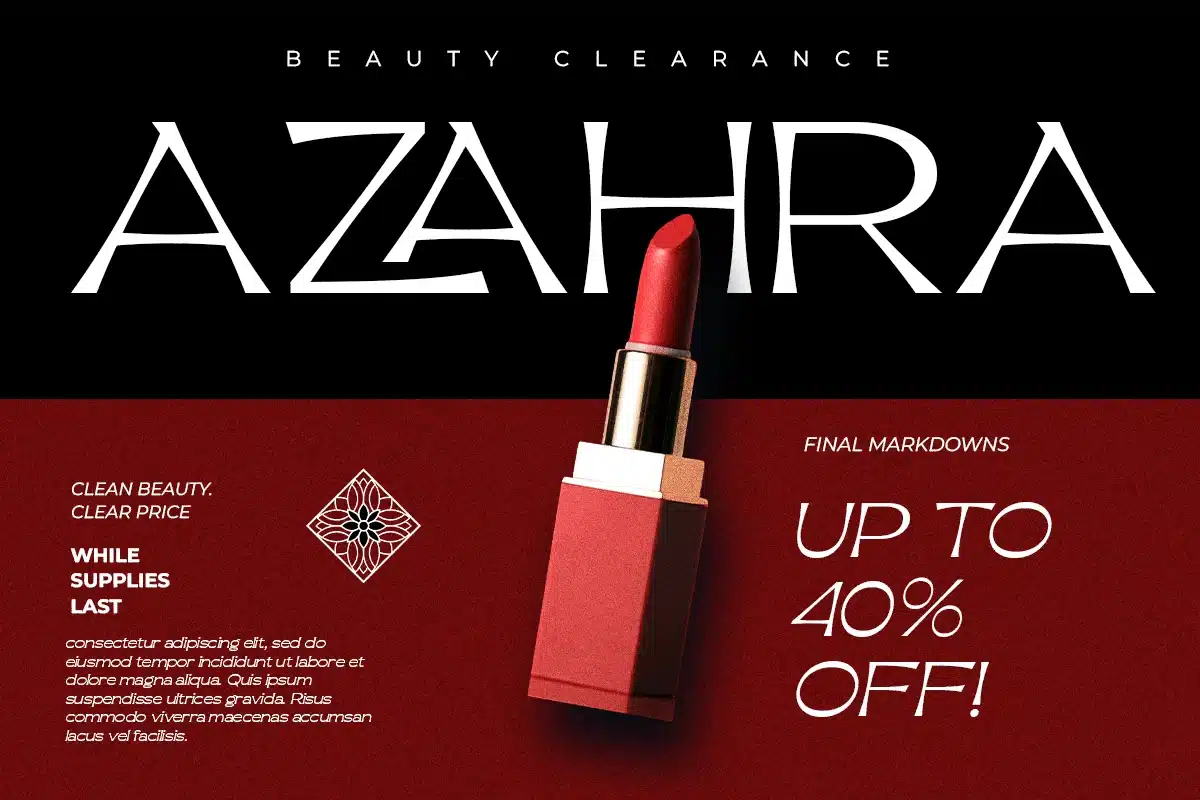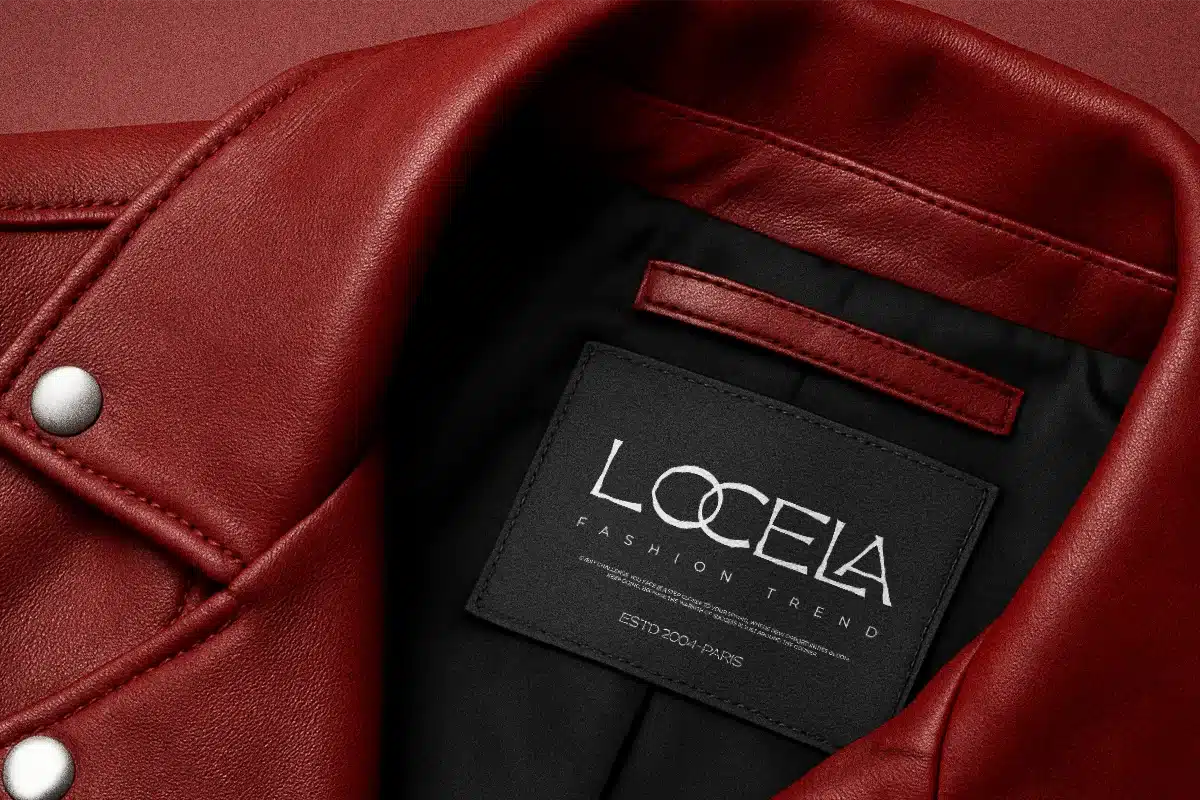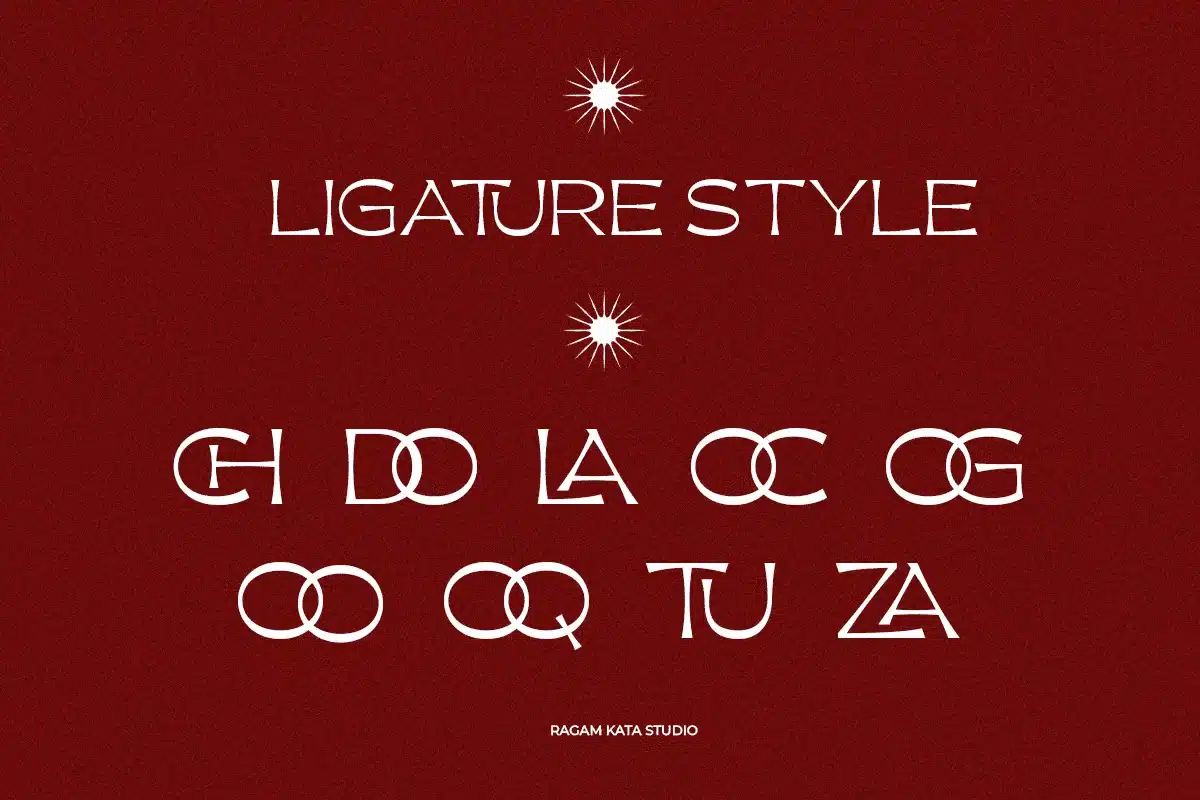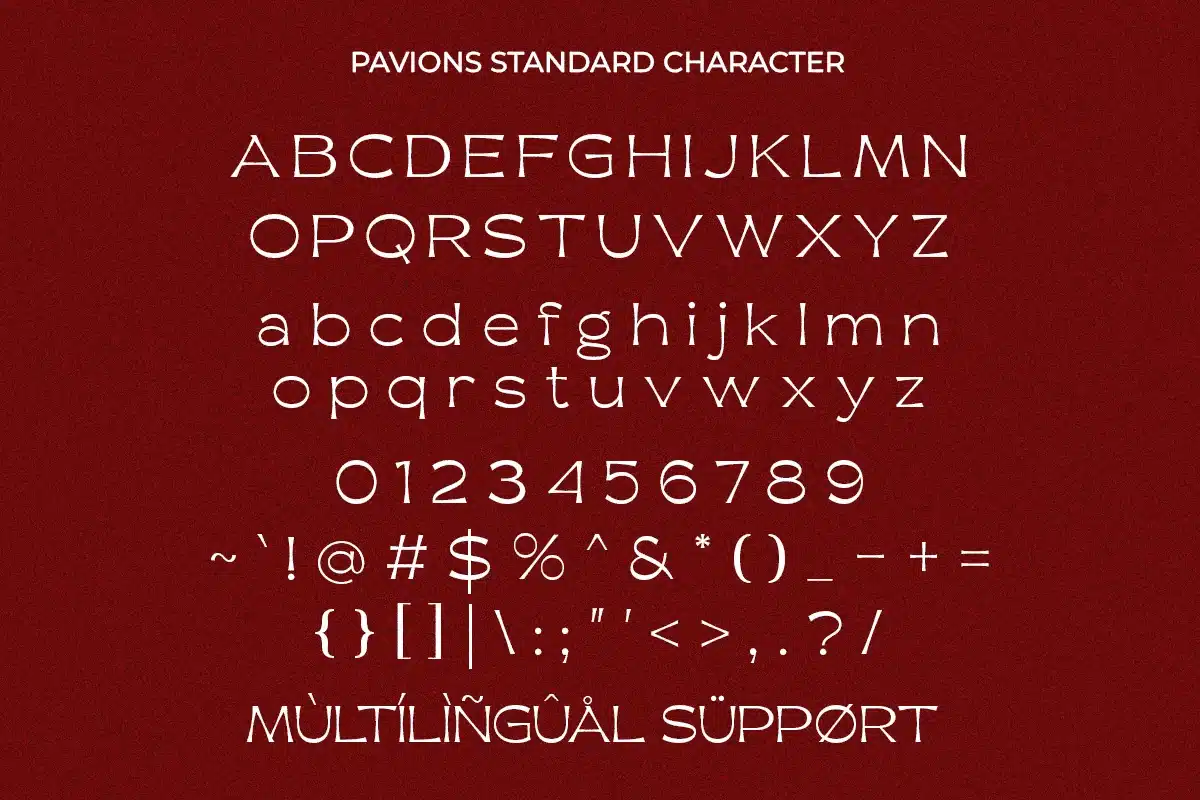
Favions – Classy Logo Typeface Font
Favions is a classy logo typeface designed to elevate modern branding with a bold sense of elegance and confidence. Inspired by high-fashion aesthetics and luxury visual identity, this typeface delivers a refined balance between minimalism and sophistication. Every curve and line is crafted to create a strong, memorable presence—perfect for brands that want to stand out with style.
Built for versatility, Favions works beautifully across a wide range of creative projects. From luxury logos, fashion editorials, and premium packaging to social media campaigns and modern branding systems, this typeface adapts effortlessly. Its clean yet expressive form makes it ideal for designers seeking a timeless yet contemporary visual tone.
Favions also brings flexibility with its carefully designed letterforms, allowing for smooth readability while maintaining a distinctive character. Whether used for headlines or logo marks, it ensures your design feels premium, confident, and visually striking in every context.
- Stylistic Ligatures
- Number and Symbol